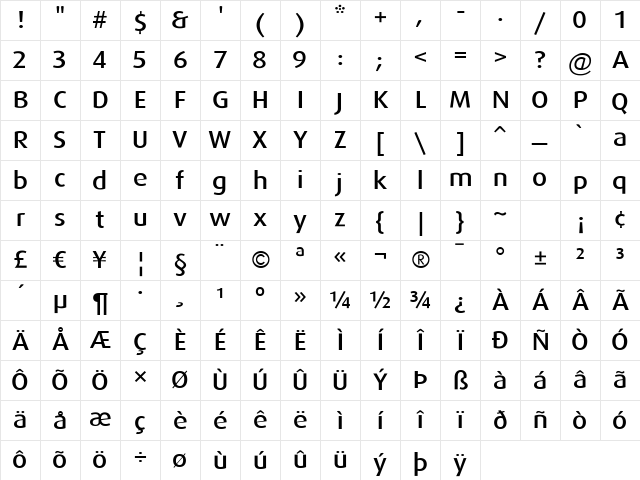
DaxWide Regular Free Font
DaxWide Regular
Complete DaxWide Regular glyph index. Displaying only characters natively supported by DaxWide Regular font.
Design Context for DaxWide
DaxWide is a composed and adaptable typeface that performs quietly and consistently across a wide range of design contexts.
Who designed the DaxWide Regular font?